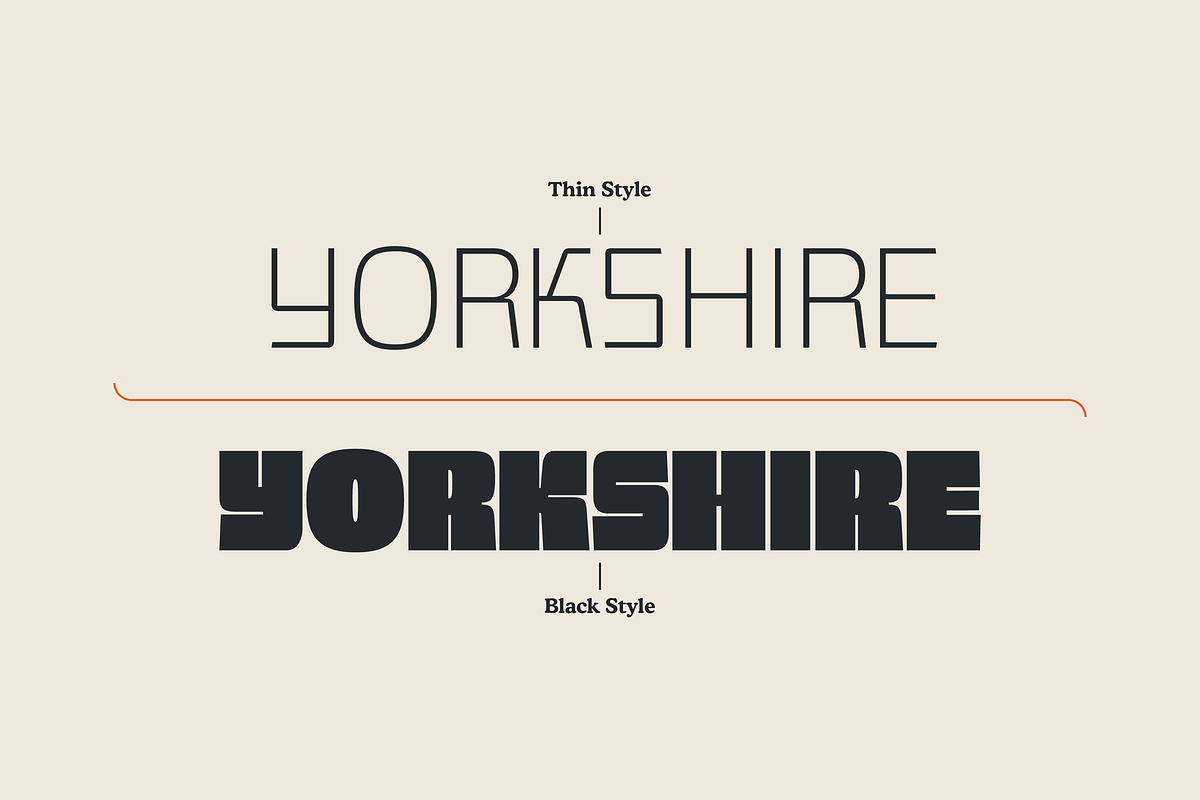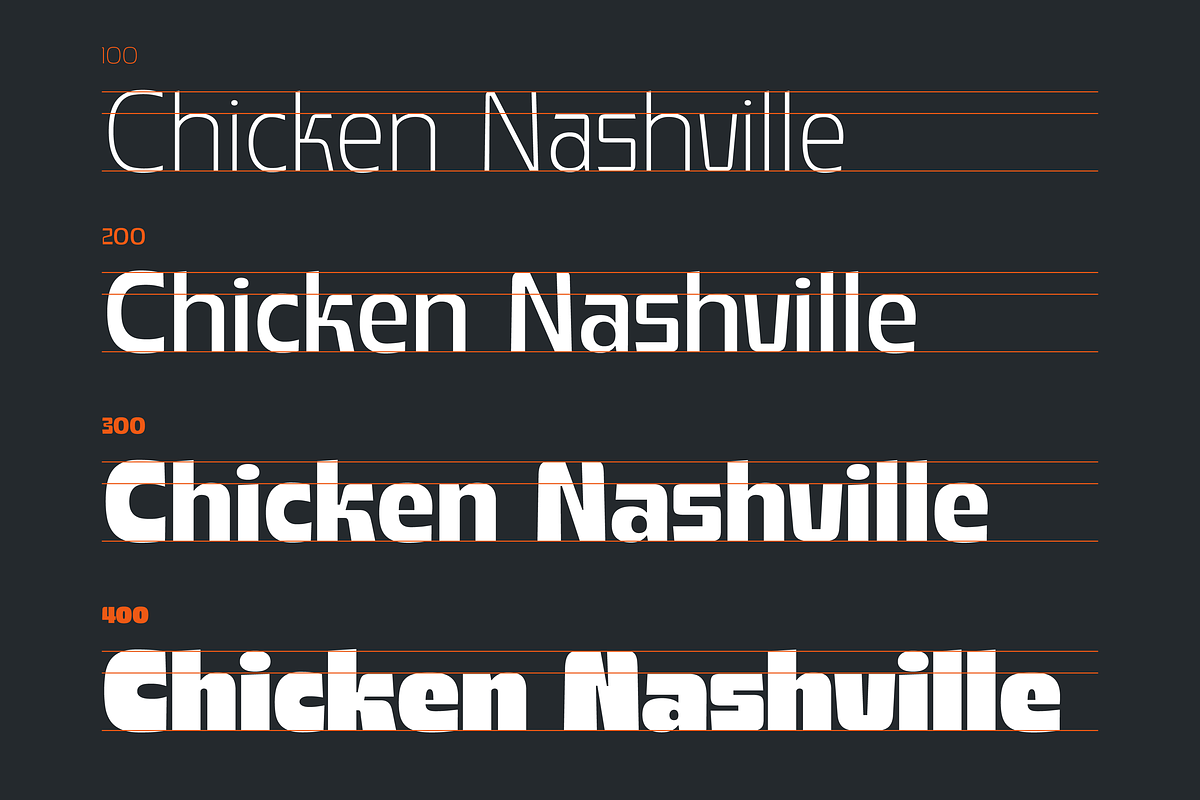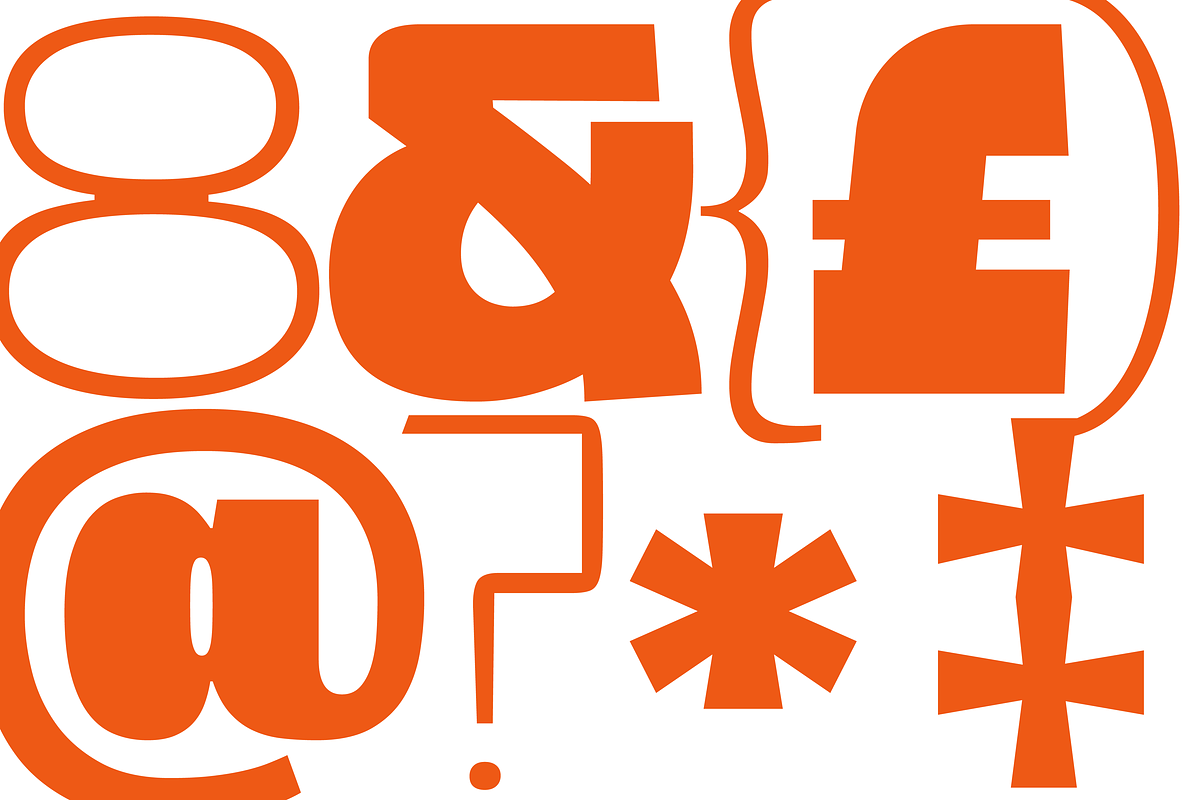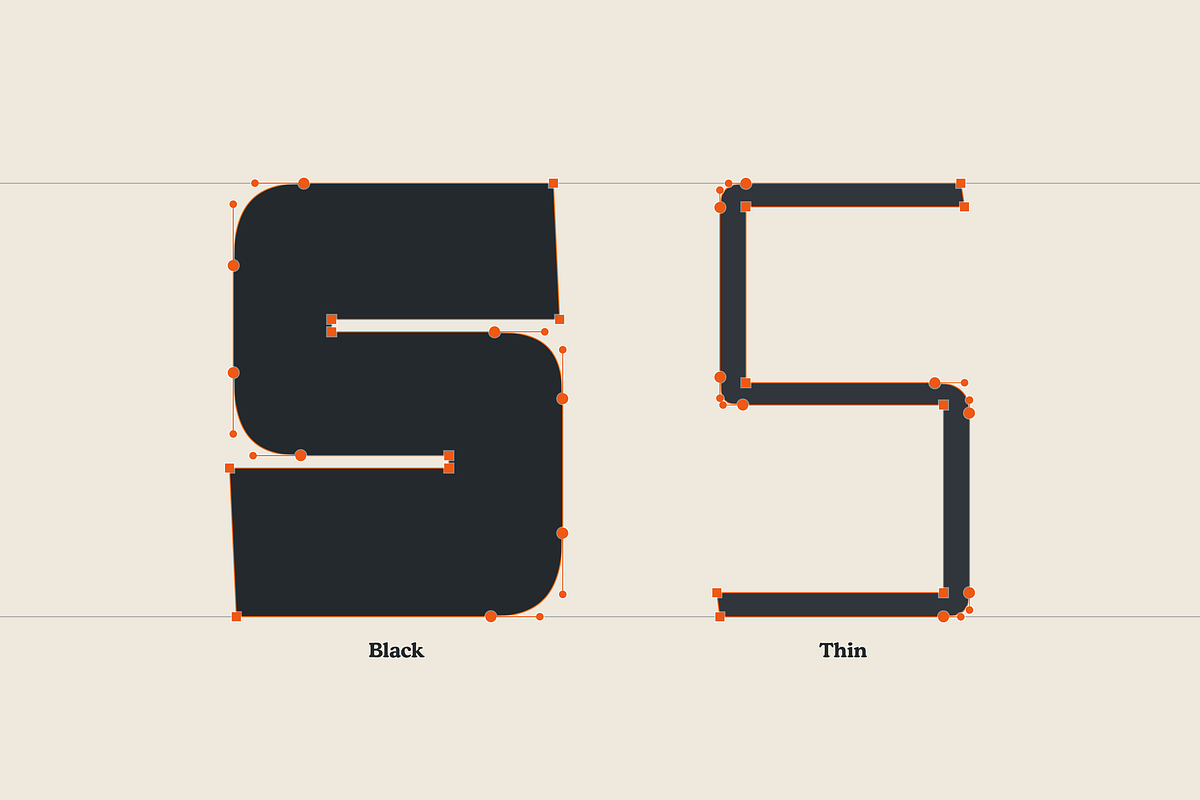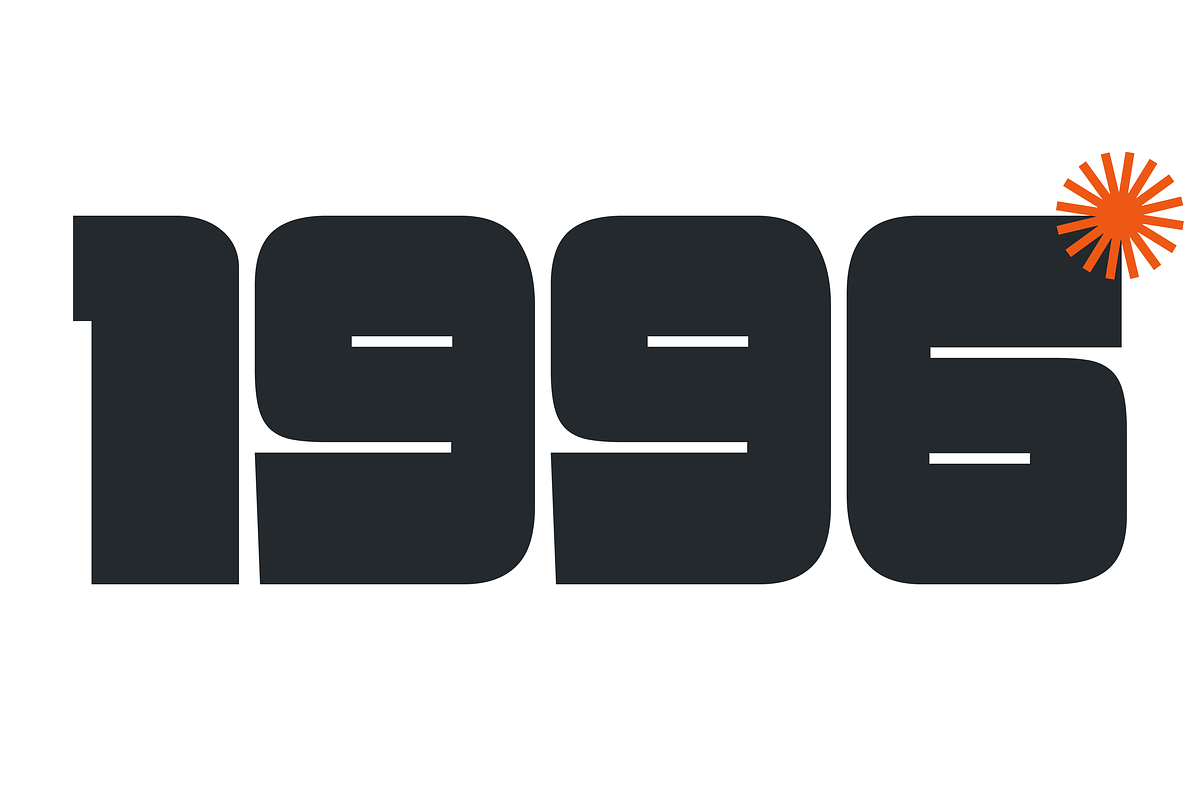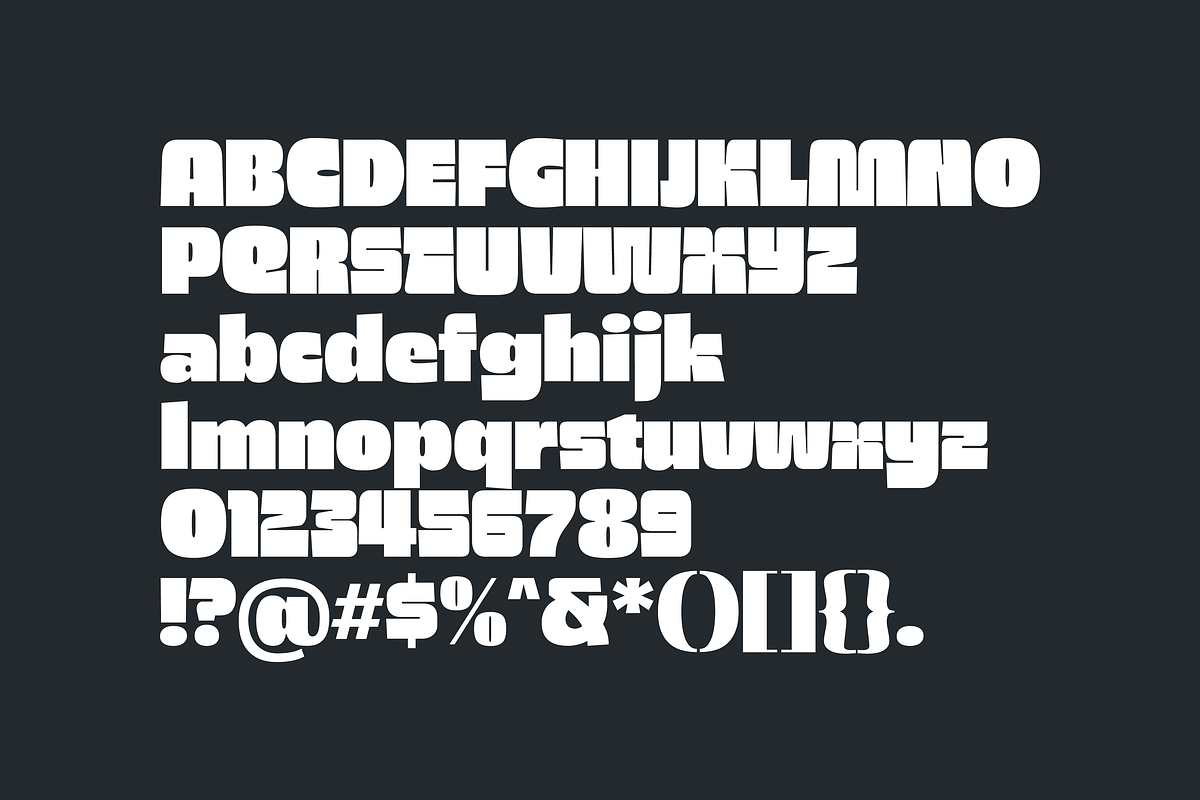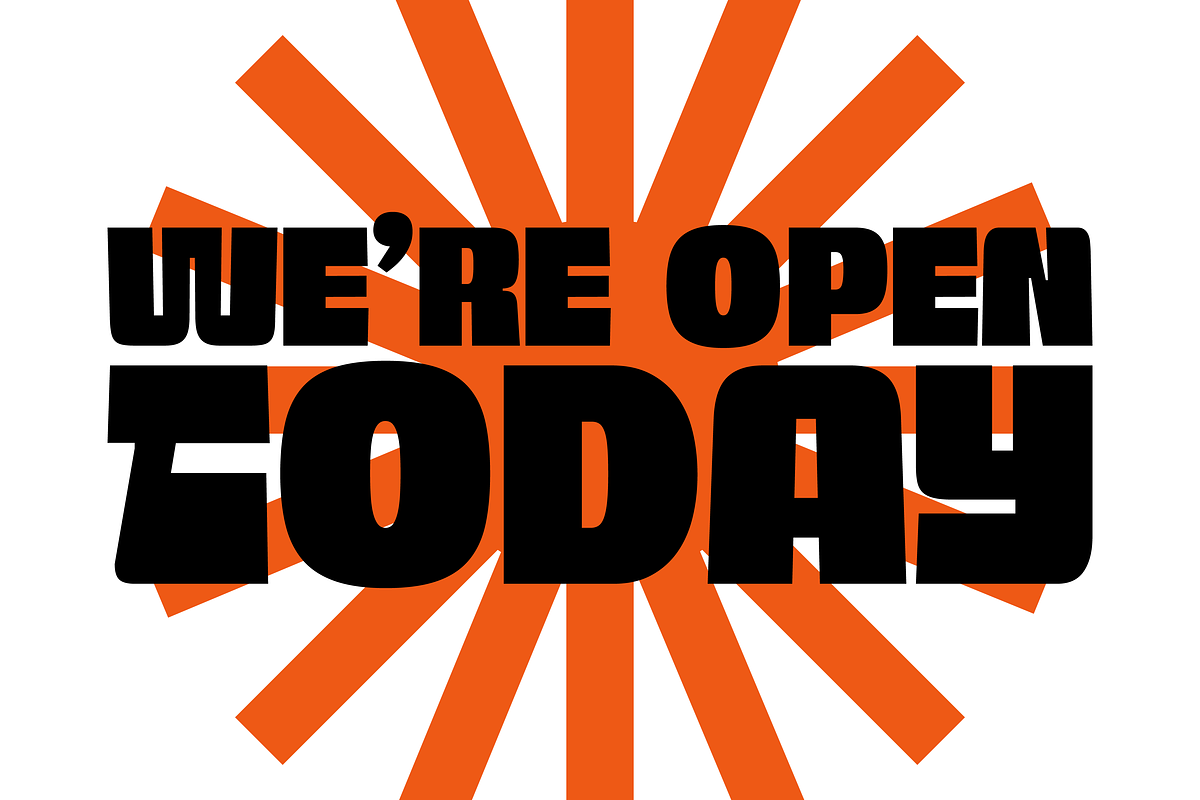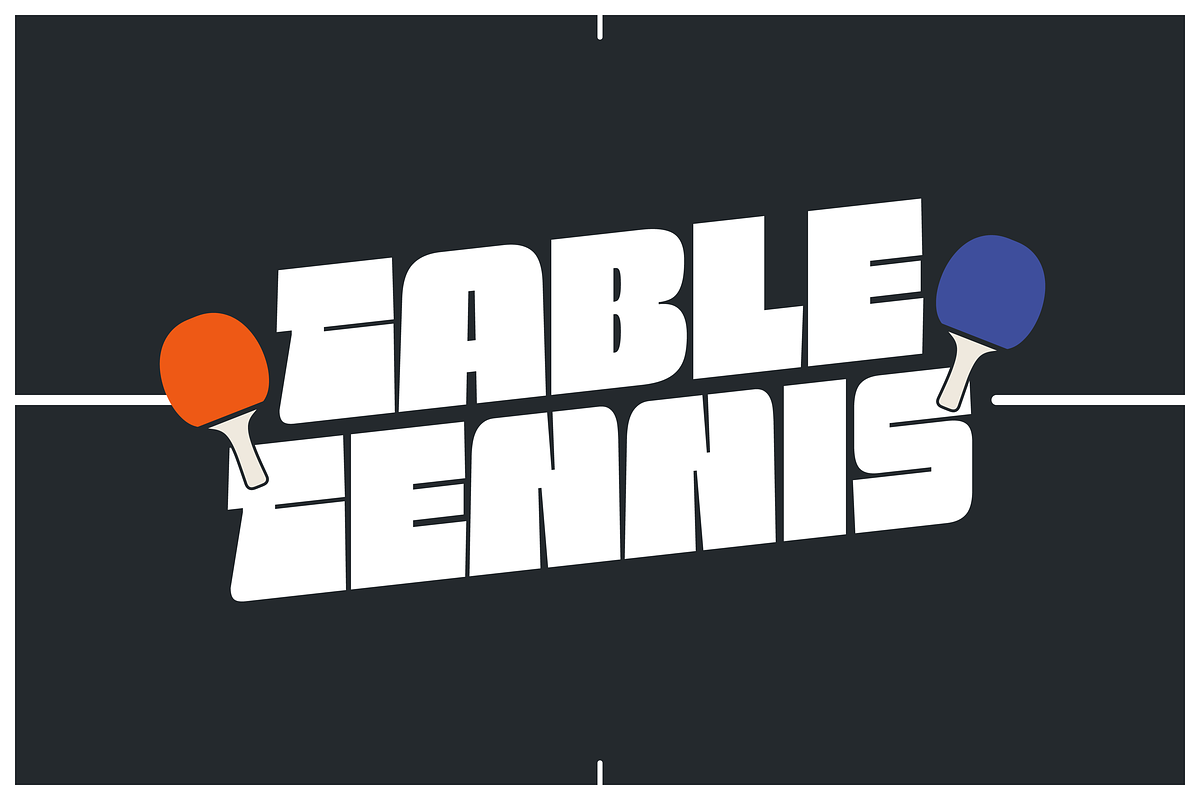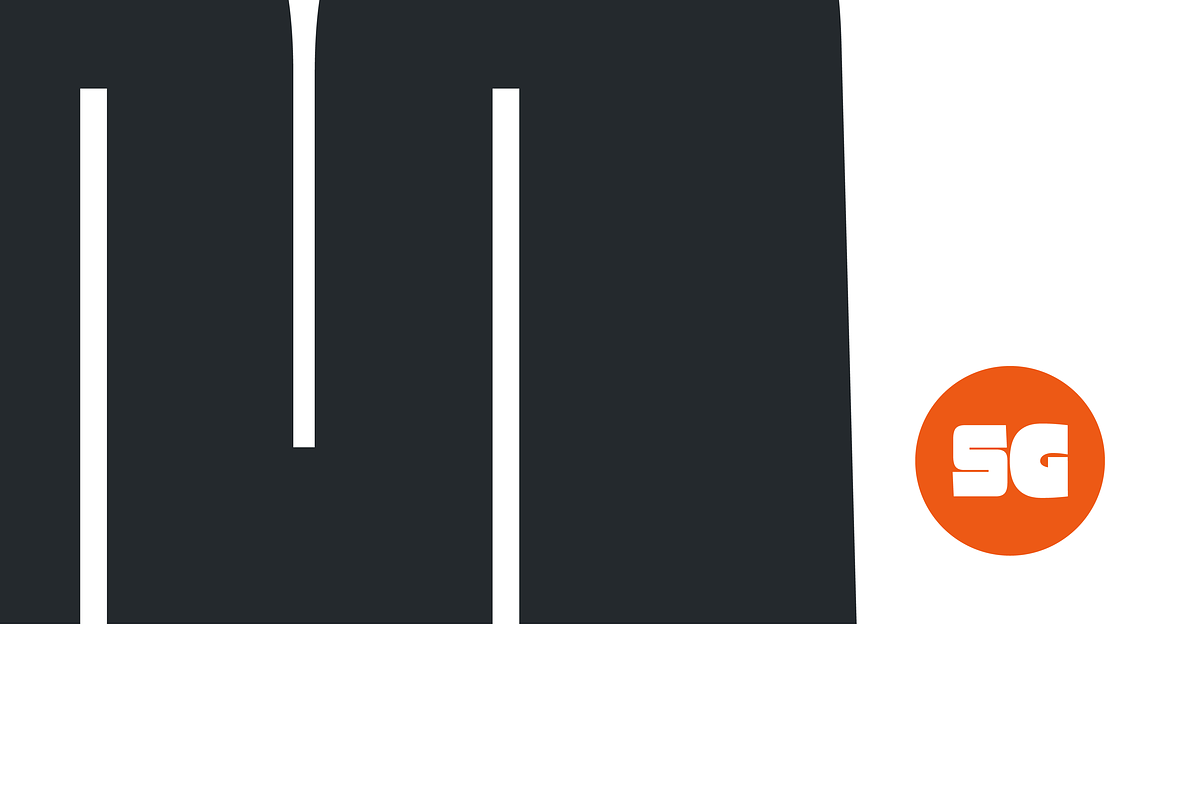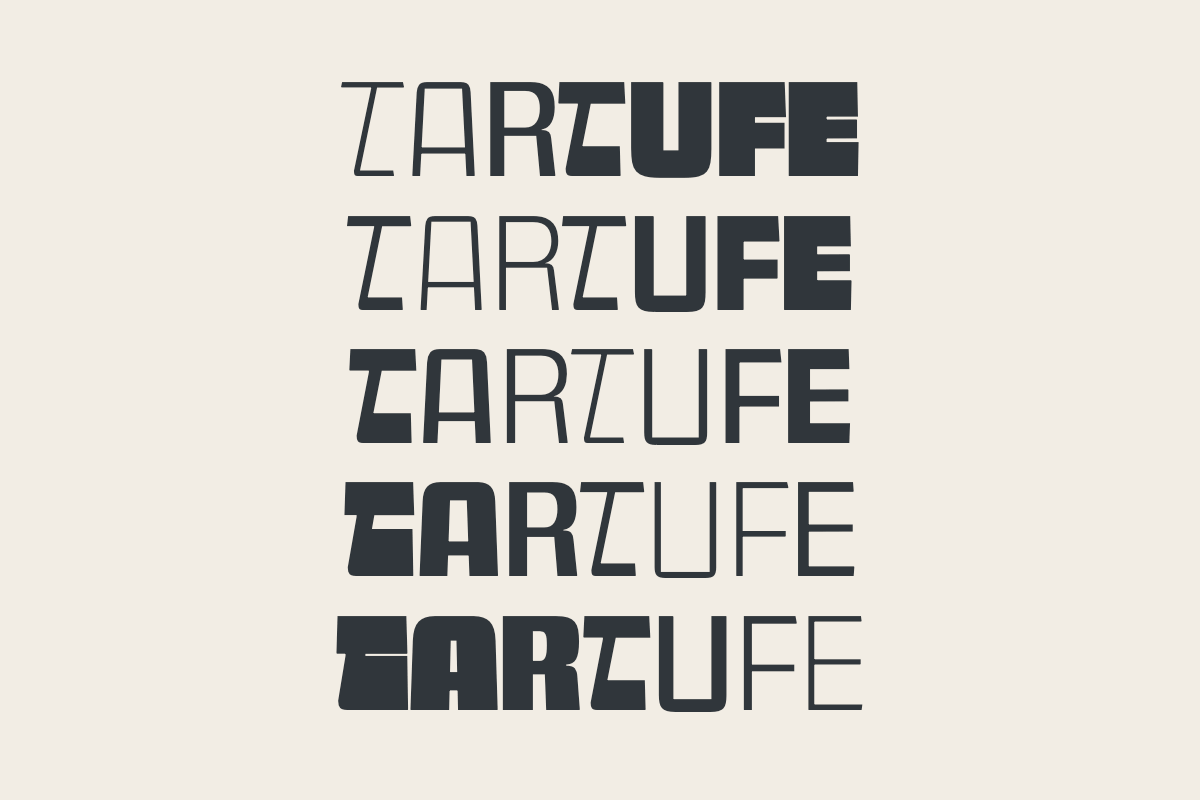
SG - TAKIMON
SG - TAKIMON is a display typeface with variable weight. SG Takimon has uppercase and lowercase letters. It’s fun, pop, and playful!
- SG Takimon - Thin
- SG Takimon - Extra Light
- SG Takimon - Light
- SG Takimon - Regular
- SG Takimon - Medium
- SG Takimon - Semi Bold
- SG Takimon - Bold
- SG Takimon - Extra Bold
- SG Takimon - Black